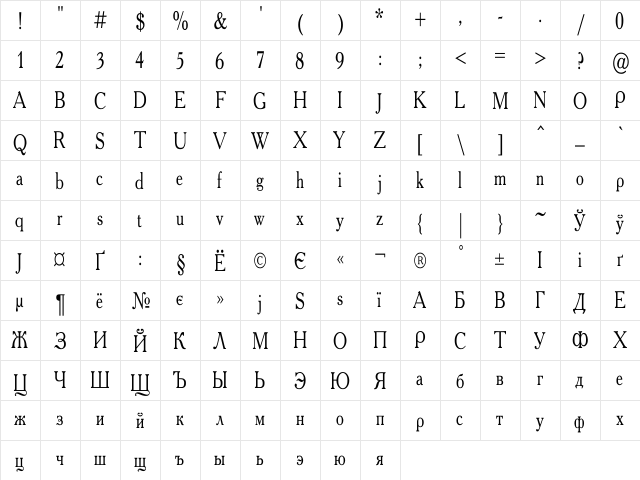
Academy Condensed Regular
Design Context for Academy Condensed Typeface
Academy Condensed takes a measured approach to typography — its balanced proportions and neutral character make it a reliable workhorse for both digital and print work. The condensed width makes it efficient for tight spaces without sacrificing legibility.